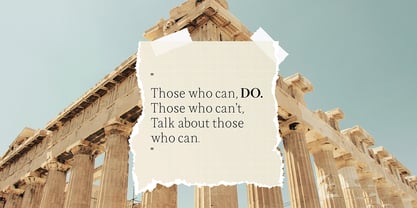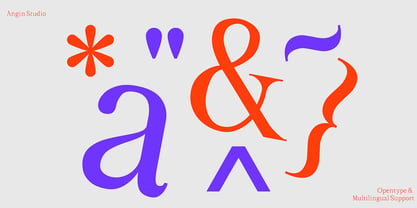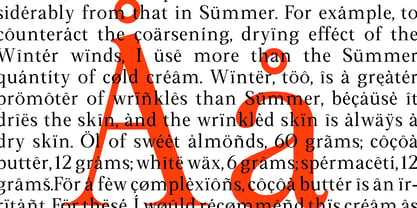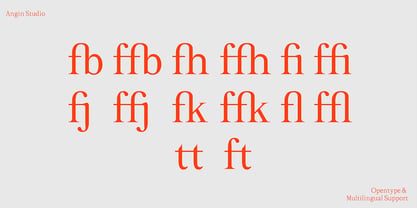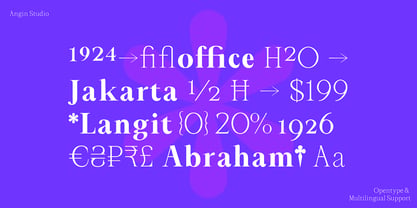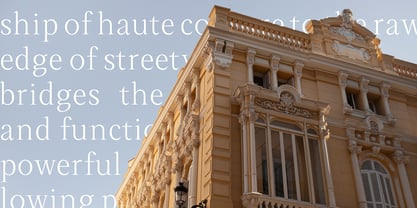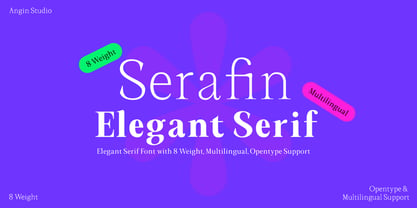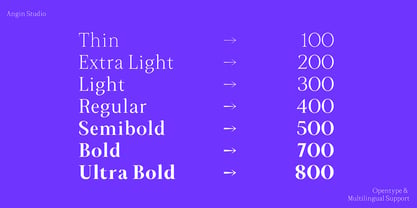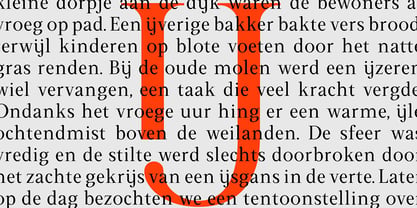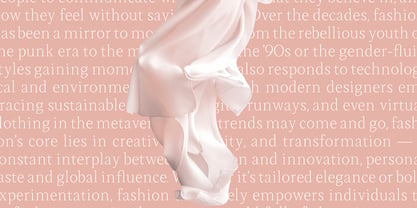
Meet Serafin, elegant serif font features multiple weights and a luxurious design that effortlessly bridges the gap between classic charm and modern sophistication. With carefully crafted letterforms, it delivers timeless beauty across editorial layouts, fashion branding, and high-end digital platforms. Designed with flexibility in mind, it also comes with 8 weight, giving you smooth control over weight and expression.
Every letterform carries confidence, with sharp serifs and graceful curves that feel both polished and bold. Whether used for headlines, logos, or packaging, this typeface delivers statement-worthy impact with effortless poise.
Features :
8 weight
Ligatures
Multilingual support :
Afrikaans, Albanian, Asu, Basque, Bemba, Bena, Breton, Catalan, Chiga, Colognian, Cornish, Croatian, Czech, Danish, Dutch, English, Estonian, Faroese, Filipino, Finnish, French, Friulian, Galician, German, Gusii, Hungarian, Icelandic, Indonesian, Irish, Italian, Kabuverdianu, Kalenjin, Kinyarwanda, Latvian, Lithuanian, Lower Sorbian, Luo, Luxembourgish, Luyia, Machame, Makhuwa-Meetto, Makonde, Malagasy, Maltese, Manx, Morisyen, North Ndebele, Norwegian Bokmål, Norwegian Nynorsk, Nyankole, Oromo, Polish, Portuguese, Quechua, Romanian, Romansh, Rombo, Rundi, Rwa, Samburu, Sango, Sangu, Scottish Gaelic, Sena, Serbian, Shambala, Shona, Slovak, Slovenian, Soga, Somali, Spanish, Swahili, Swedish, Swiss German, Taita, Teso, Turkish, Upper Sorbian, Uzbek (Latin), Volapük, Vunjo, Welsh, Western Frisian, Zulu.